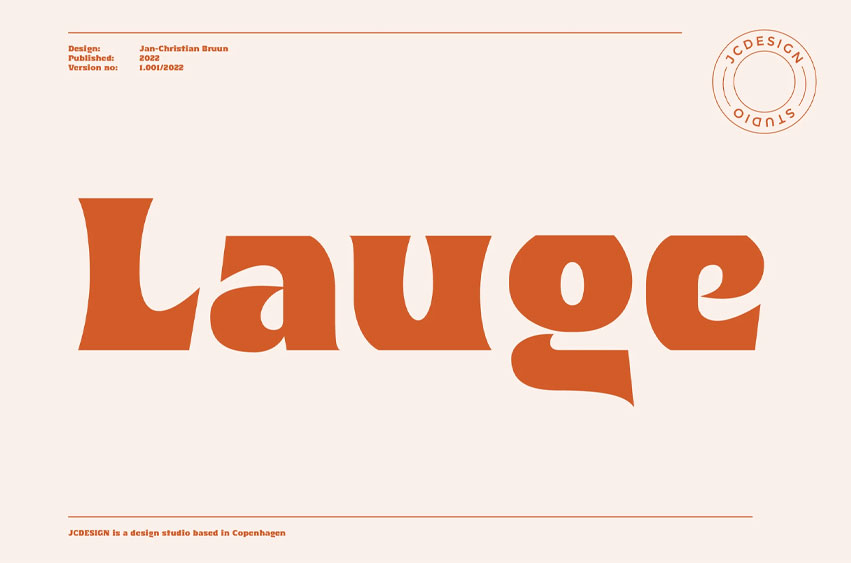
Lauge Font
Lauge Font was created as a corporate typeface for etiket packaging design. The inspiration from the old Danish type and old museum posters from the 30s.
This font is great for logos, children’s books, posters, package design, cinema posters, branding, and many, many other cool design projects. Enjoy!